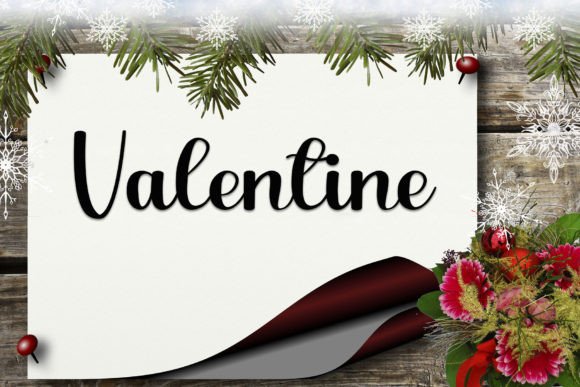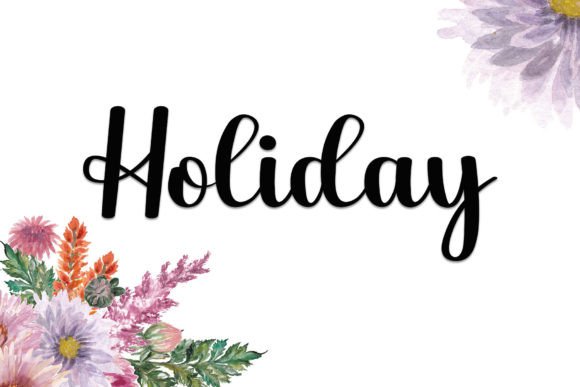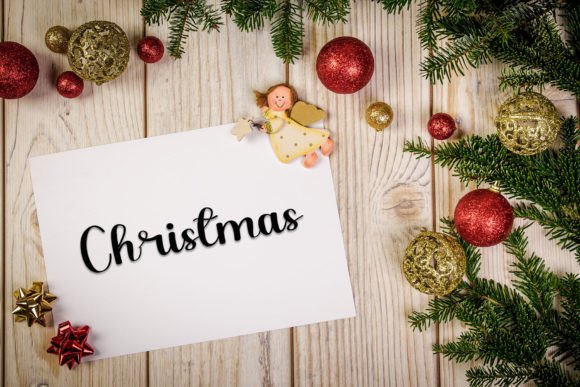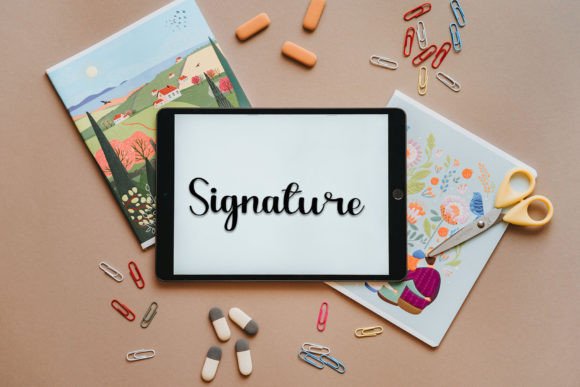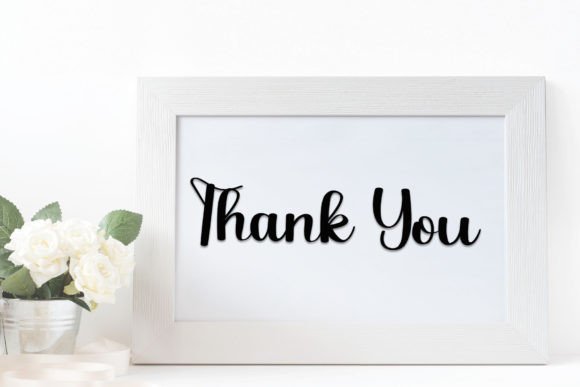
Introducing Handmade Font: Elevate Your Designs with Elegance and Timelessness
Are you on the hunt for a font that exudes elegance, sophistication, and a touch of personal warmth? Look no further than the Handmade Font, a stunning handwritten typeface that is sure to capture your heart. Described as neat and beautiful, this font is characterized by an elegant touch that makes it perfect for a wide range of projects. Whether you’re a designer, craftsperson, or simply someone who appreciates the beauty of handwritten typography, Handmade Font is an excellent choice for creating spectacular designs that stand out from the crowd.
The Distinctive Style of Handmade Font
One of the most striking features of Handmade Font is its incredibly distinct and timeless style. Unlike generic, computer-generated fonts that can often feel cold and impersonal, Handmade Font boasts a unique, handcrafted quality that is impossible to replicate with digital typography alone. Each letter, word, and sentence flows effortlessly into the next, creating a beautiful, cohesive look that is sure to draw attention and inspire admiration.
Whether you’re working on a logo, branding materials, social media graphics, or any other type of design project, Handmade Font is an excellent choice. Its versatility and flexibility make it suitable for a wide range of applications, from elegant wedding invitations and sophisticated business cards to eye-catching posters and engaging social media content.
Why Designers and Crafters Love Handmade Font
So, what makes Handmade Font so special? For designers and crafters, there are several key benefits to using this beautiful font:
- Elegance and sophistication: Handmade Font adds a touch of class and refinement to any design project, making it perfect for high-end branding, luxury products, and special occasions.
- Unique and memorable: The distinctive style of Handmade Font ensures that your designs will stand out from the crowd and leave a lasting impression on your audience.
- Flexibility and versatility: Whether you’re working on a digital project or a print-based design, Handmade Font is highly adaptable and can be used in a variety of contexts.
- Easy to read and understand: Despite its elegant, cursive style, Handmade Font is remarkably legible, making it perfect for body text, headings, and titles.
Tips for Using Handmade Font in Your Designs
To get the most out of Handmade Font, here are a few expert tips to keep in mind:
- Pair with complementary fonts: Handmade Font works beautifully with clean, sans-serif fonts like Arial, Helvetica, or Open Sans. Experiment with different font combinations to find the perfect balance for your design.
- Experiment with colors and textures: Handmade Font looks stunning in a range of colors and textures. Try pairing it with rich, muted tones or bold, bright hues to add depth and visual interest to your design.
- Pay attention to spacing and layout: To ensure that your text flows smoothly and elegantly, make sure to leave sufficient space between lines and words. You can also experiment with different layout options, such as centering or justified text, to create a visually appealing design.